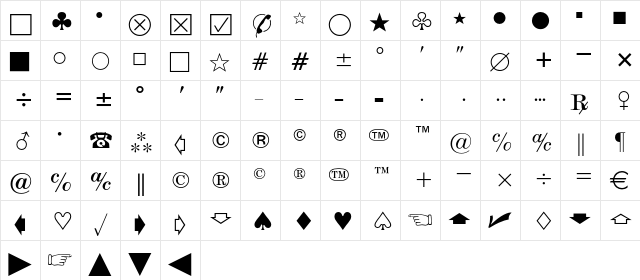
Commercial Pi Regular
Design Context for Commercial Pi Typeface
Commercial Pi is a composed and adaptable typeface that performs quietly and consistently across a wide range of design contexts.